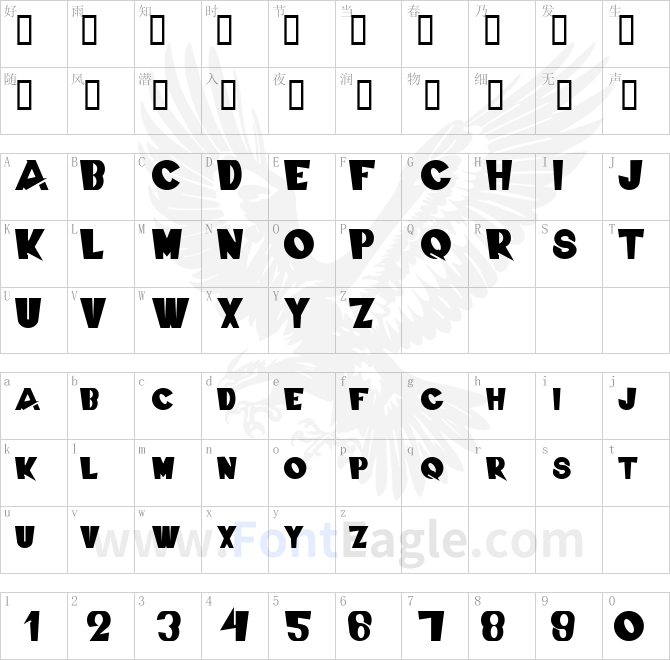
- Font name:Swiss Cheesed
- Font Copyright:Swiss Cheesed freeware © 1995 (all characters except Q, U, A, N, T, M, L, E, P, q, a, n, t, u, m, l, e, p) by mattt chisholm. Quantum Leap like font modeled after the TV show logo. if you like it, tell me so: matttJRC@aol.com.